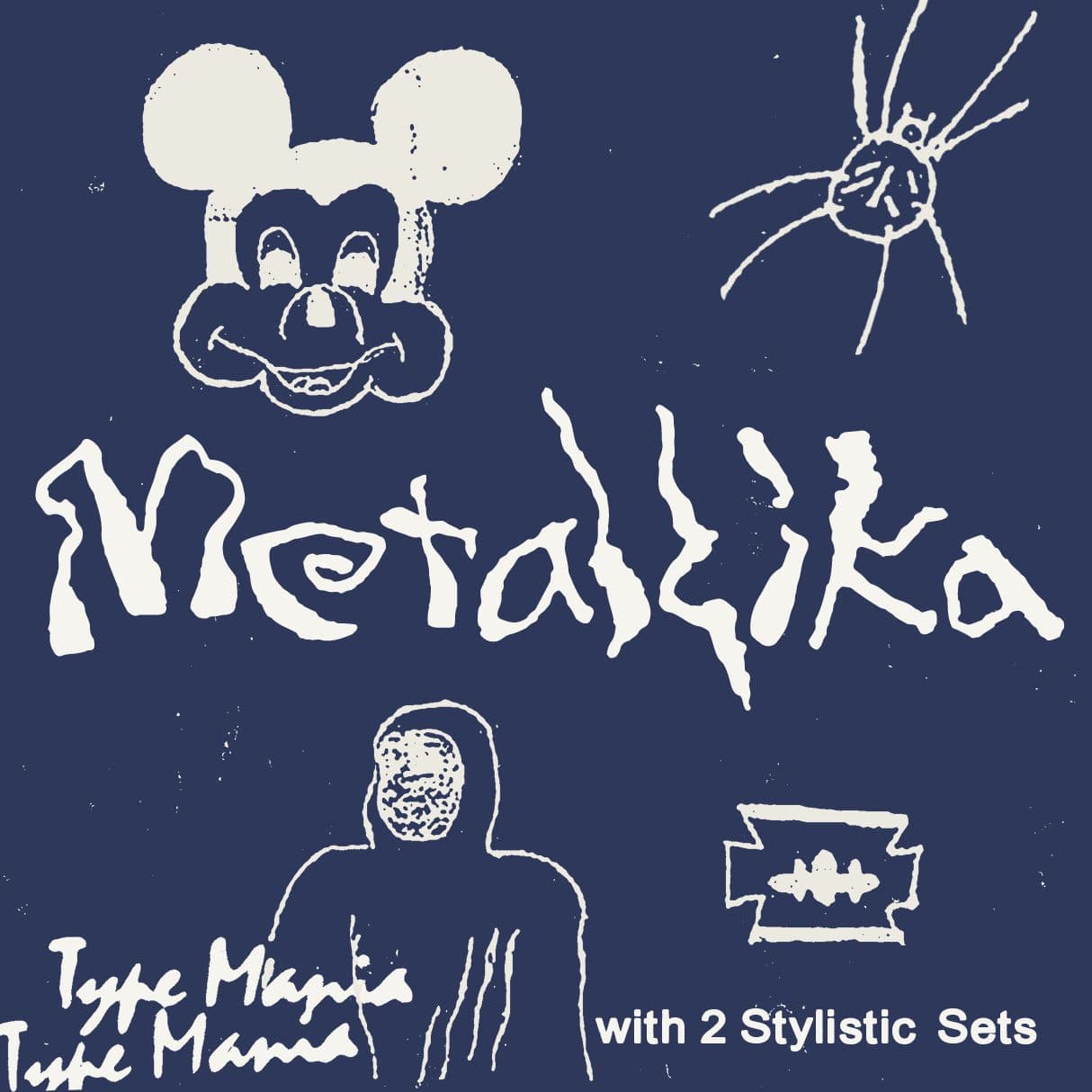
<p>Whether you're summoning the spirits of the abyss or guiding souls to higher planes, <strong>Metallika TM</strong> adapts to your creative vision with ease. Elevate your album covers, posters, merchandise, and beyond with the unparalleled versatility of <strong>Metallika TM</strong> 😈</p> <p><strong>Zip includes</strong></p> <ul> <li>OTF file</li> <li>TTF file</li> <li>WOFF2 file</li> </ul> <p><strong>OpenType features</strong></p> <ul> <li>2 stylistic sets</li> <li>The font is programmed to automatically shift between the stylistic sets whenever the same glyphs are typed side by side</li> </ul> <p><strong>Languages</strong></p> <ul> <li>Basic Latin</li> <li>Western European</li> <li>Euro</li> <li>Central European</li> <li>Pan African Latin</li> <li>388 glyphs</li> </ul> <p><em>Graphic Design is Easy (with Type Mania)®</em></p>